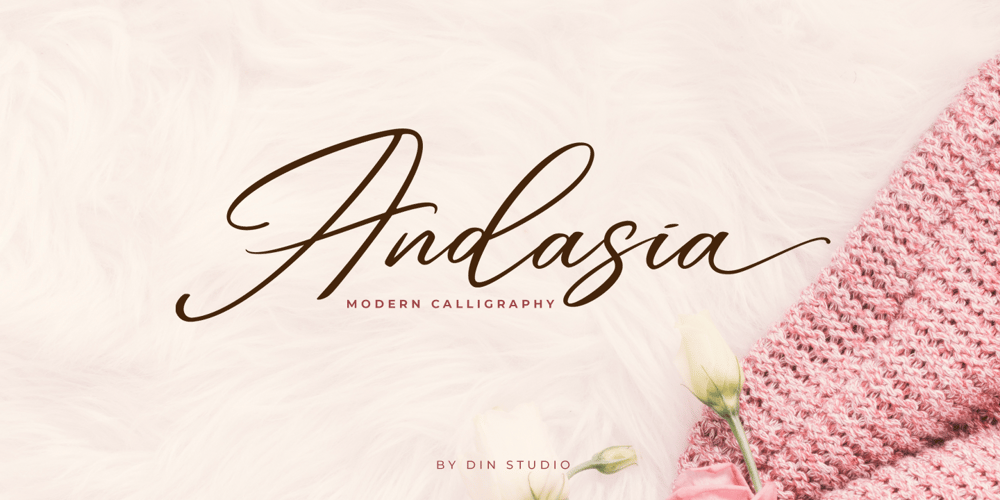
Andasia Font Family was designed by Donis Miftahudin and published by Din Studio. Andasia contains 2 styles and family package options. Andasia Script beautiful calligraphy with natural and handwritten style. It brings a beautiful and modern typeface that best used for weddings, branding, logotype, and quotes.Features: Beautiful Ligatures PUA Encoded Multilingual Support Numerals and Punctuation Swash (a-z) I hope your project design would be more beautiful with this Andasia Script.Happy Design :)Thank You!